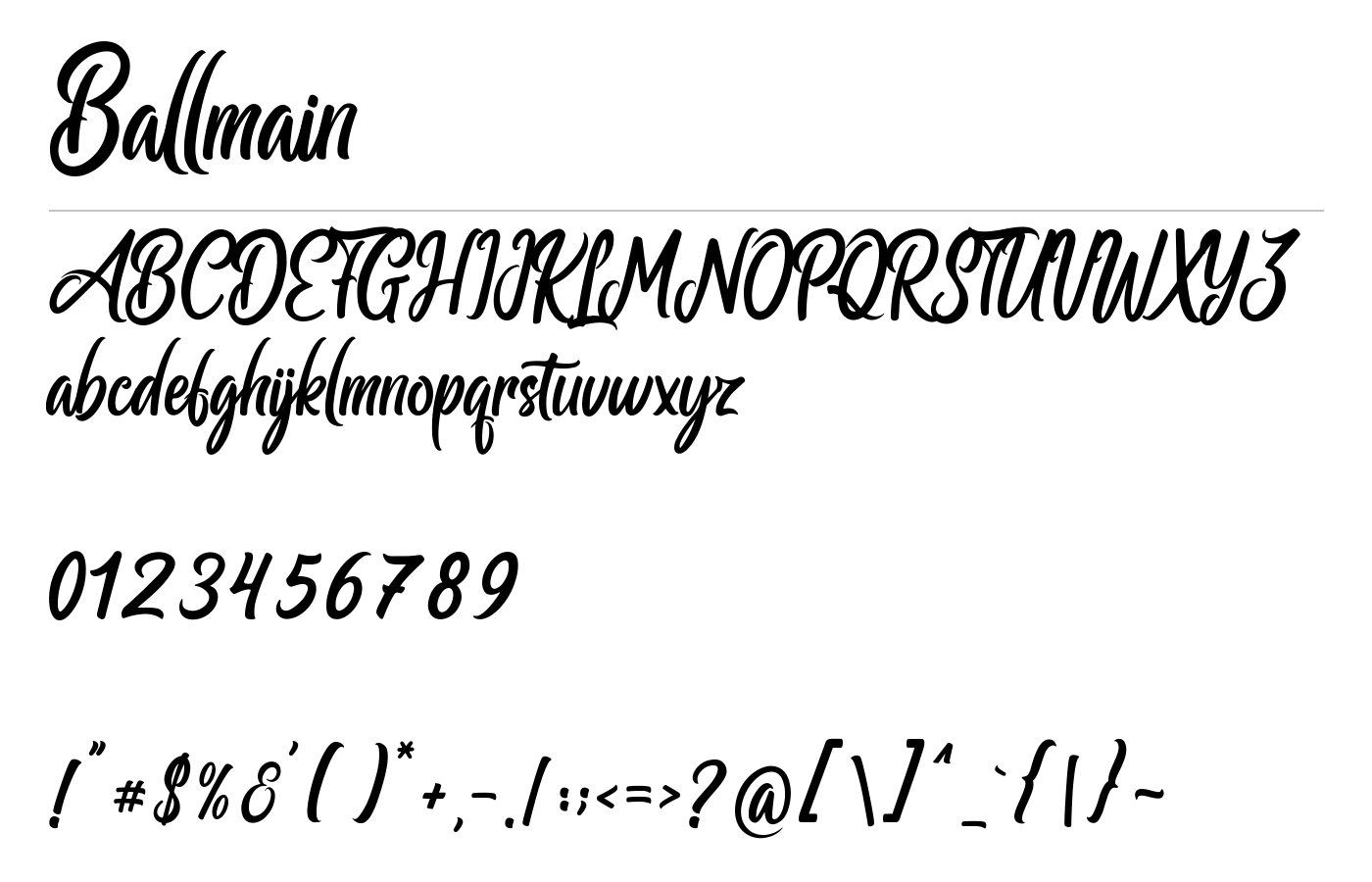
Ballmain is a stylish script font with a lively, handwritten feel, featuring smooth, flowing strokes and moderate contrast that create an elegant yet approachable look. Its upright, calligraphic letterforms with distinct loops and curves lend themselves well to fashion, branding, and packaging design where a personal and sophisticated touch is desired. This font works best in logos and headlines, adding charm and flair without sacrificing legibility.
Ballmain Font
About Ballmain Font